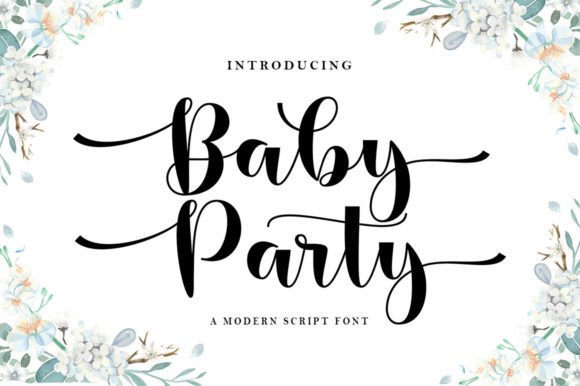
Introducing Baby Party Font, the Best Font for Wedding Hashtag! Created by Skinny type, this exquisite script font is the ultimate choice for all your design needs. With its captivating beauty and extensive range of 300+ glyphs, Baby Party Font will elevate your projects to new heights.
Looking for the perfect font to add a touch of elegance to your branding projects? Look no further! Baby Party Font effortlessly conveys a sense of sophistication and style, making it ideal for logos, packaging, and business cards. Its graceful strokes and fluid lines will leave a lasting impression on your audience, setting you apart from the competition.
But that's not all – Baby Party Font is also your go-to font for all your invitation card needs. Whether you're hosting a wedding, birthday party, or any special event, this font will add a touch of charm and whimsy to your invites. Your guests won't be able to resist the allure of your beautifully crafted cards, making them even more excited to attend your celebration.
What sets Baby Party Font apart from other script fonts is its versatility. It effortlessly adapts to various design styles and themes, making it a must-have for any creative project. Whether you're going for a modern, vintage, or even a playful look, this font has got you covered. It's like having multiple fonts in one, saving you time and effort while ensuring stunning results.
But let's talk about the emotional impact Baby Party Font can create. Imagine the joy and excitement your clients will feel when they receive their custom-made products adorned with this enchanting font. From personalized home appliances to unforgettable wedding favors, your creations will resonate with warmth and love. Baby Party Font adds that extra special touch that turns ordinary objects into cherished keepsakes.
In summary, Baby Party Font is not just a font – it's a gateway to a world of creativity and inspiration. Its beauty, versatility, and emotional appeal make it the perfect choice for anyone looking to make a lasting impression. So why wait? Download Baby Party Font today and let your imagination run wild!